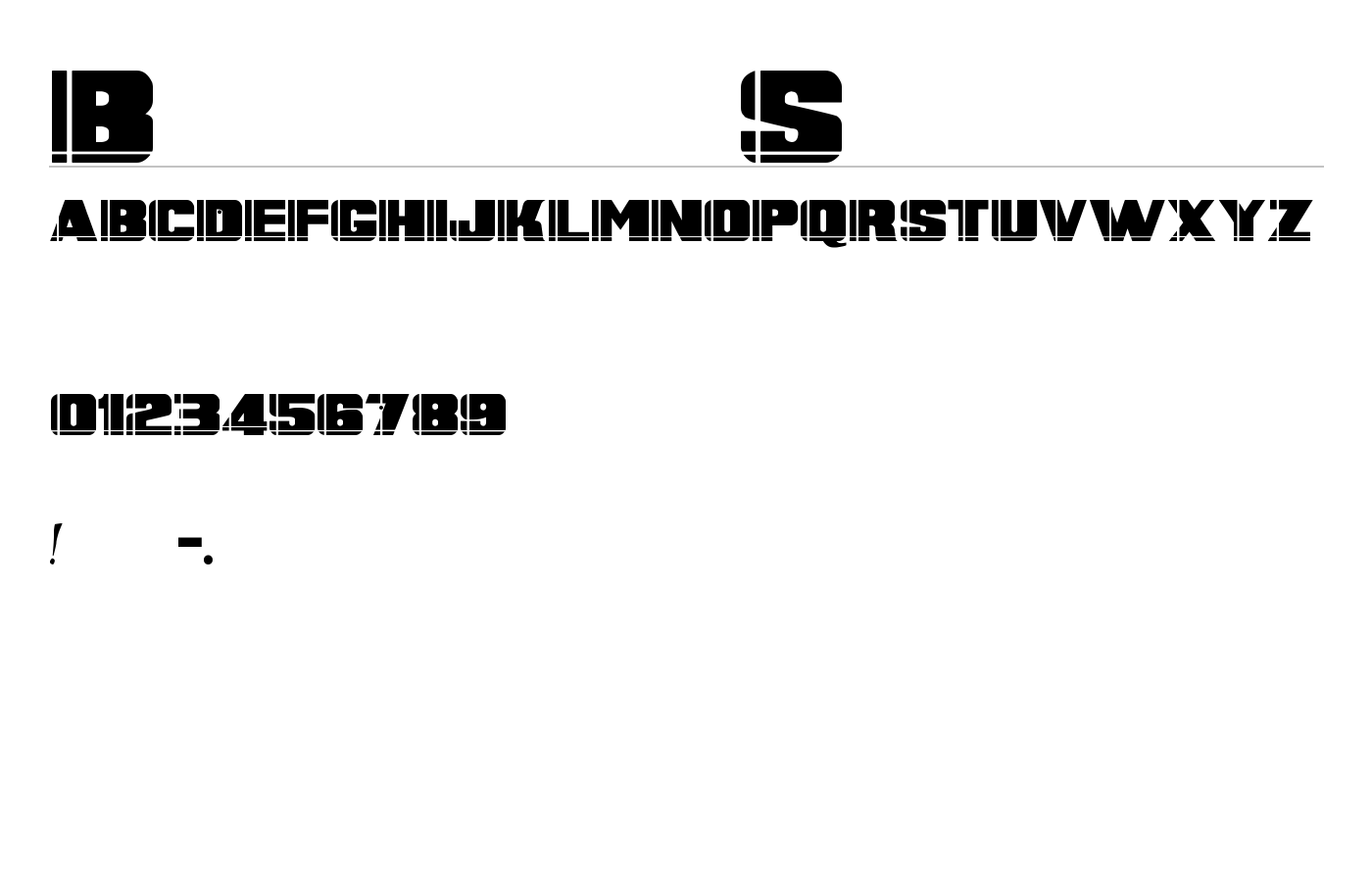
Banner Script Font is a bold and striking display typeface with a stencil-inspired look that combines heavy block letterforms with sharp cutout details. Its strong presence and geometric style make it perfect for attention-grabbing headlines, posters, logos, and branding that seek a rugged, industrial, or vintage feel. This font works best in large sizes where its unique stencil breaks and solid shapes can clearly stand out.
Banner Script Font